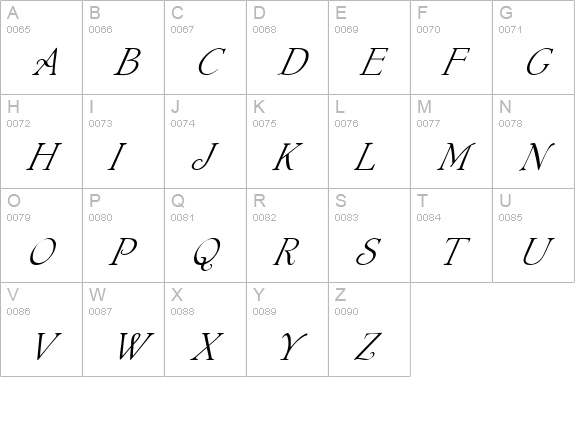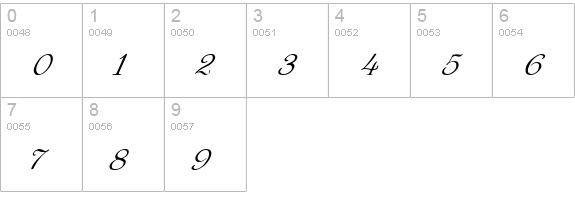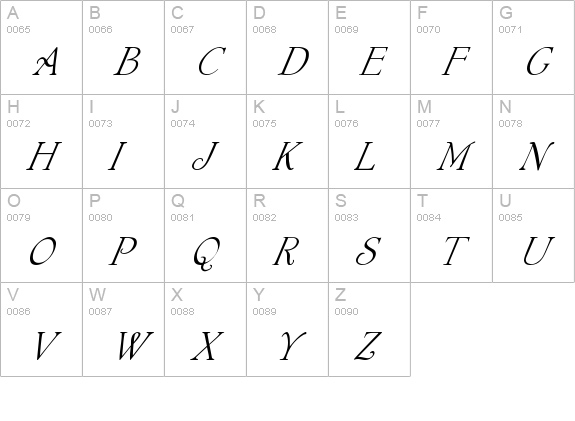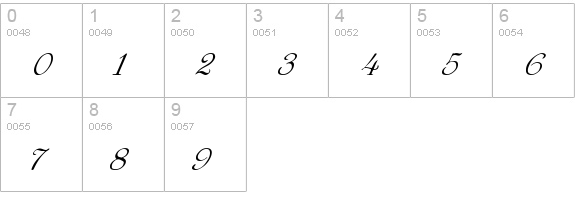
FZ ROMAN 16 ITALIC Font Details
FZ ROMAN 16 ITALIC is a distinctive, italic variant in the FZ typeface family \xE2\x80\x94 well suited to design and typography projects.
FZ ROMAN 16 ITALIC is a sleek and elegant font style that exudes sophistication and charm. Its italicized design adds a touch of flair and modernity to any text or design project. The clean lines and sharp angles of this font make it perfect for adding a touch of class to any project, whether it be for print or digital media. What sets FZ ROMAN 16 ITALIC apart is that it is freely available to download at FontsMarket.com. This means that you can easily access and use this font for personal or commercial projects without any cost. With its versatility and timeless appeal, FZ ROMAN 16 ITALIC is a must-have font for designers, artists, and creatives looking to elevate their work with a touch of sophistication and style.